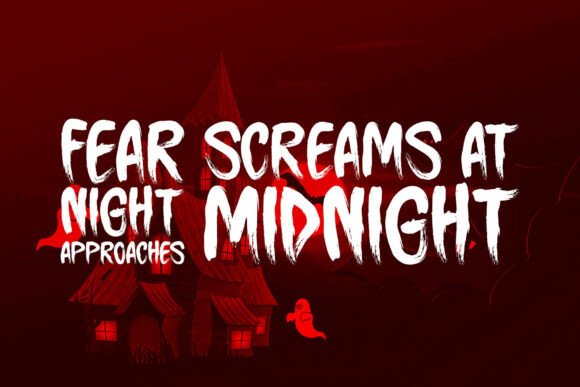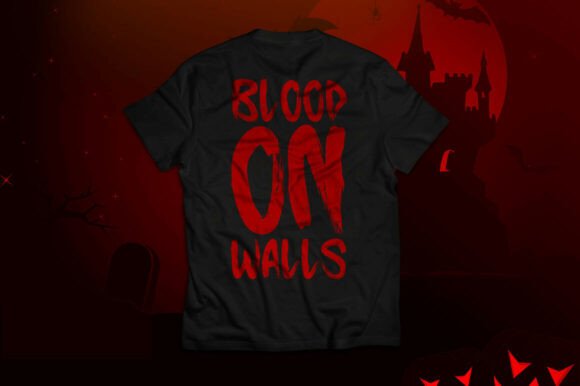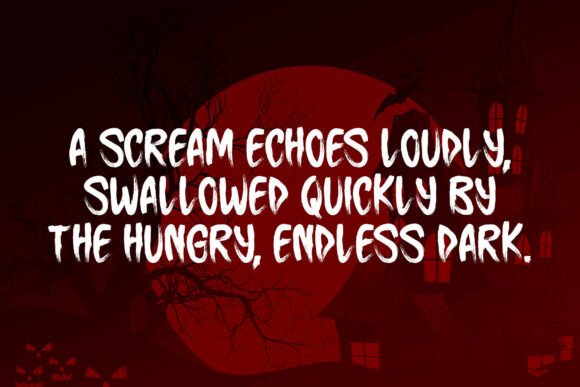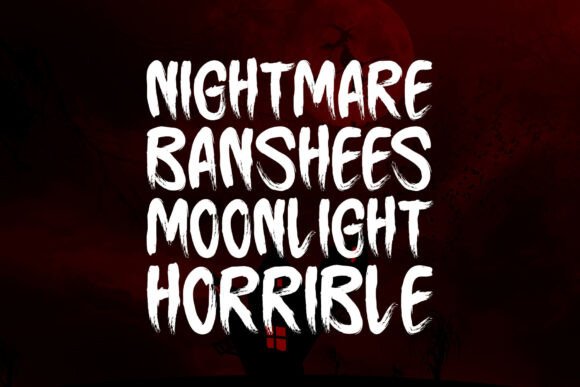
Get Ready to Cast a Spell with Your Designs
As the witching hour approaches, designers like you are likely itching to unleash their creativity and get into the spooky spirit. There’s nothing quite like the thrill of conjuring up a hauntingly beautiful design, one that sends shivers down the spines of those who lay eyes on it.
That’s where the Bloody Echoes Font comes in – a bold, brush display font that captures the essence of Halloween with its rough strokes and eerie style. Whether you’re creating posters, flyers, or apparel, this versatile font delivers a striking presence that’s sure to cast a spell on your audience.
As a designer, you know how valuable it is to have the right tools at your disposal. That’s why Bloody Echoes Font is a must-have for any serious designer looking to add some Halloween magic to their work. With its PUA-encoded glyphs, swashes, and alternate characters, you’ll be able to customize your creations with ease and create truly unforgettable designs.
Bloody Echoes Font Key Features
- Font Family: Bloody Echoes
- Unique Characteristics: Distressed, grunge, and horror-themed font with a bold, eerie feel, perfect for titles, headings, and other design elements that require a sense of drama and tension
Bloody Echoes Font Review
Overall, I’d say Bloody Echoes Font is a bold and eye-catching choice for those looking to make a statement with their typography. ✨
Here are a few things that work well:
- The font’s unique blend of gothic and Victorian elements creates a sense of mystery and intrigue. ✨
- The bold weight options are perfect for headings and titles, adding a touch of drama to any design. ✨
- The font’s irregularities and imperfections give it a handmade feel that’s hard to replicate with more traditional fonts. ✨
- The font’s readability can suffer at smaller font sizes, making it less suitable for body text. ⚠️
- The font’s irregularities can also make it difficult to pair with other fonts, requiring more careful consideration when combining with other typography. ⚠️
Overall, I’d say Bloody Echoes Font is a great choice for designers looking to add some edge and sophistication to their designs. Just be mindful of its limitations and use it thoughtfully to get the most out of this unique font.
For best results, use the Bloody Echoes Font in bold or italic styles to emphasize important text.
Use the font in conjunction with other design elements, such as images and graphics, to create a cohesive look.
The Bloody Echoes Font is ideal for:
- Creating a spooky or horror-themed design.
- Adding a touch of elegance and sophistication to a design.
- Creating a retro or vintage-inspired design. Alternatives to Bloody Echoes Font
- Choose a dark and eerie color scheme to complement the font’s gothic style.
- Use the font for the title and tagline to create a sense of foreboding and fear.
- Experiment with different font sizes and styles to create a sense of hierarchy and emphasis.
- Use a bold and distressed texture to give the poster a worn and weathered look.
- Use the font for the title and headings to create a sense of mystery and intrigue.
- Use the font for notes and journal entries to create a sense of authenticity and realism.
- Use a distressed and worn texture to give the journal a sense of age and authenticity.
Comparison: While Bloody Echoes Font has a more edgy and bold feel, Carolyna Pro Font is more elegant and
Creative Projects with Bloody Echoes Font
Project 1: Horror Movie Poster
A chilling poster for a horror movie featuring the Bloody Echoes Font.
Project 2: Paranormal Investigation Journal
A spooky journal for paranormal investigators featuring the Bloody Echoes Font.